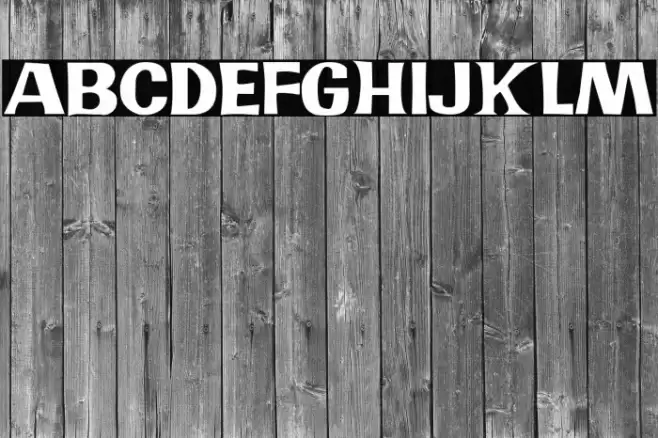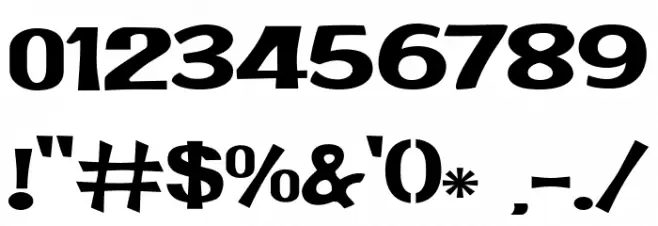
JMHPREXP-Regular Font
JMHPREXP-Regular Description
This font features a bold and dynamic style with a strong presence. The uppercase letters are characterized by their wide and slightly condensed forms, giving them a robust appearance. The lowercase letters maintain a consistent weight, providing a harmonious balance between the two cases. The numerals are equally bold, ensuring readability and impact. Special characters are designed with the same boldness, making them stand out. The overall design is modern and slightly decorative, with unique angles and curves that add a touch of flair.
A bold, modern font with a slightly decorative and dynamic style from Comic fonts.
- Proposed Projects: Ideal for branding projects, headlines, posters, and any design requiring a strong visual impact.
- Overall Style: Modern, Decorative